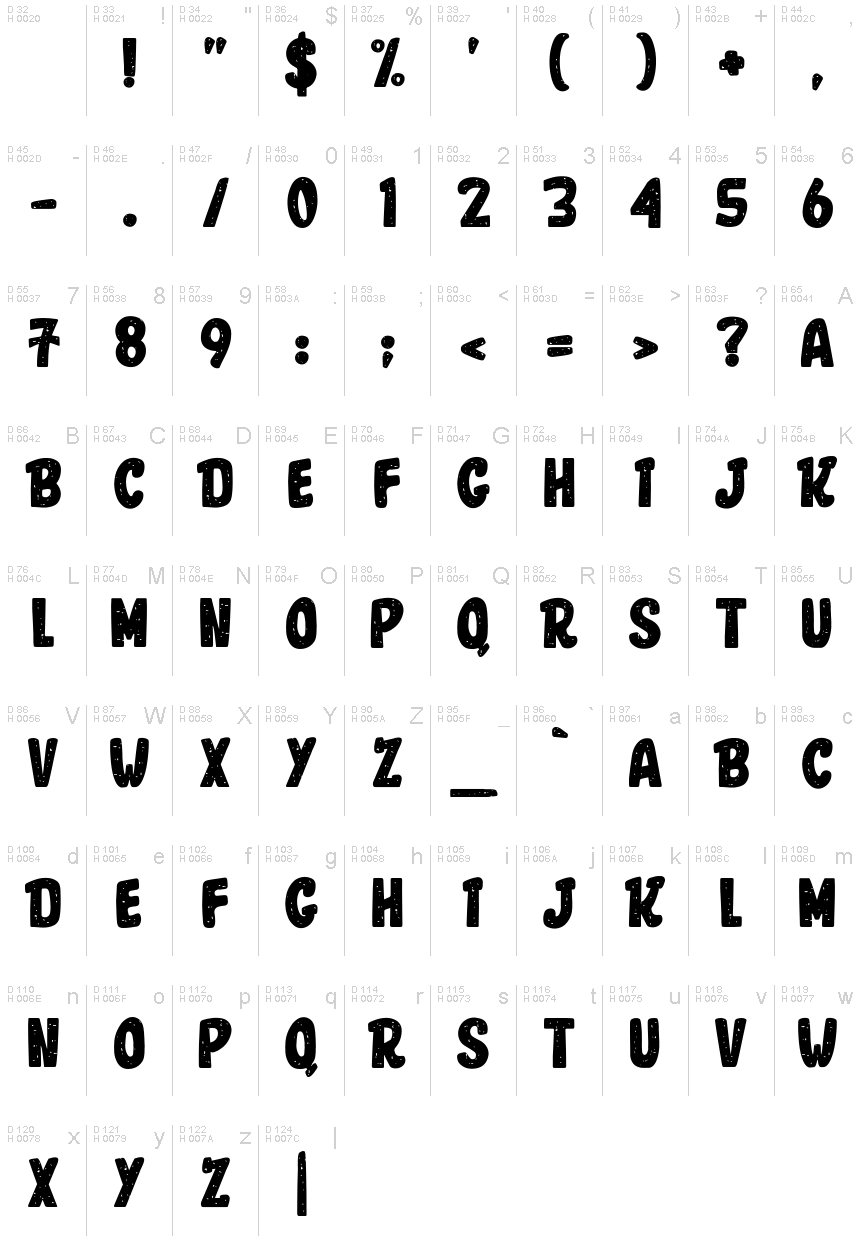
Beach Sport, a bold and captivating display font created by Octotype and Thomas Boucherie, commands attention with its unique, cartoon-inspired aesthetic. Condensed and brimming with energy, this font exudes a sense of playfulness and movement, making it an ideal choice for projects seeking a dynamic, attention-grabbing visual impact.
The Beach Sport font's distinctive letterforms, with their irregular, hand-drawn edges and bold, chunky strokes, lend it an unmistakable charm. This font's versatility shines through, as it seamlessly adapts to a variety of design applications, from eye-catching logos and posters to energetic product packaging and digital interfaces.
Beach Sport